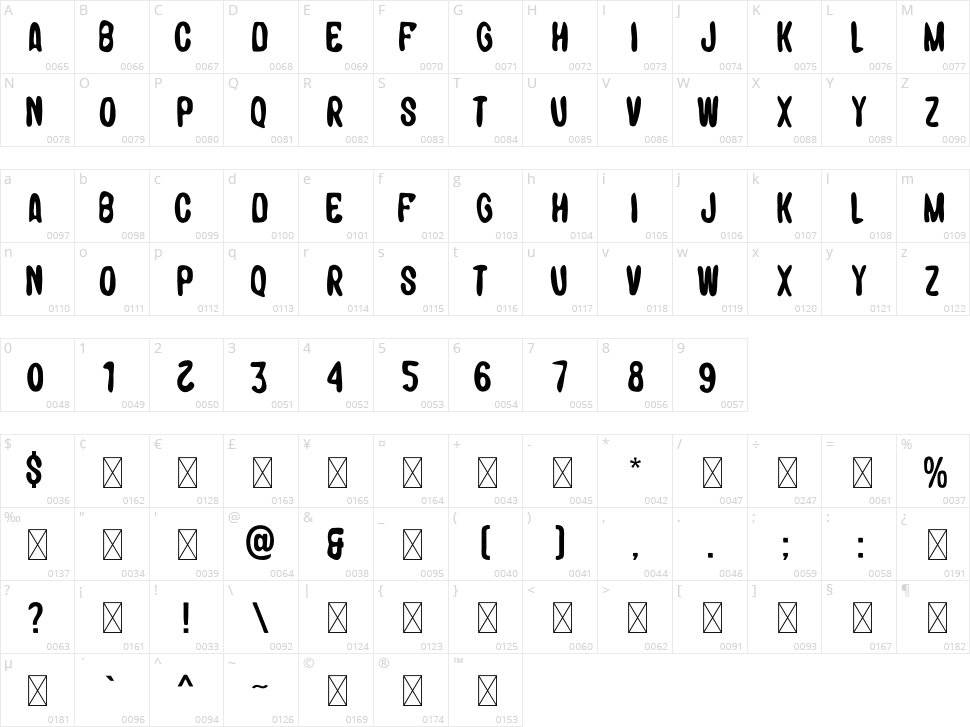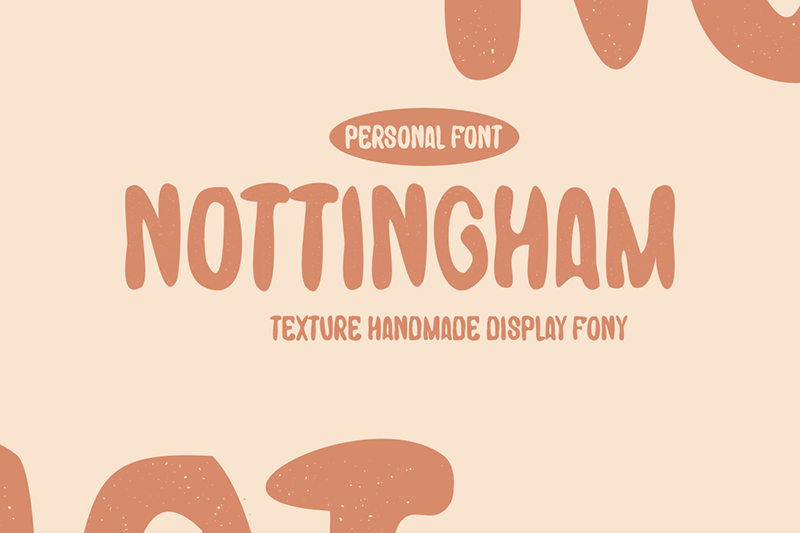
Nottingham
Nottingham | Textured Handrawn Typeface
A rounded display typeface, Textured Handrawn Typeface.
Uppercase letters only
Standard English alphabet